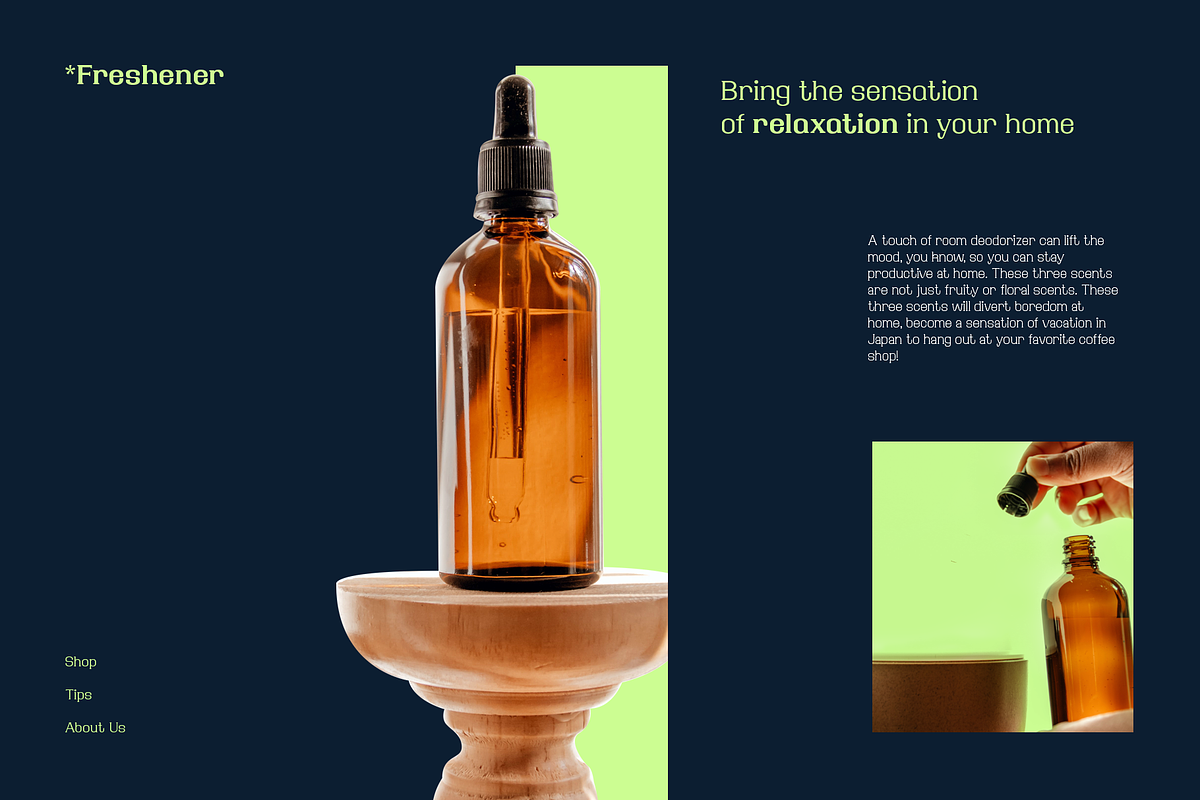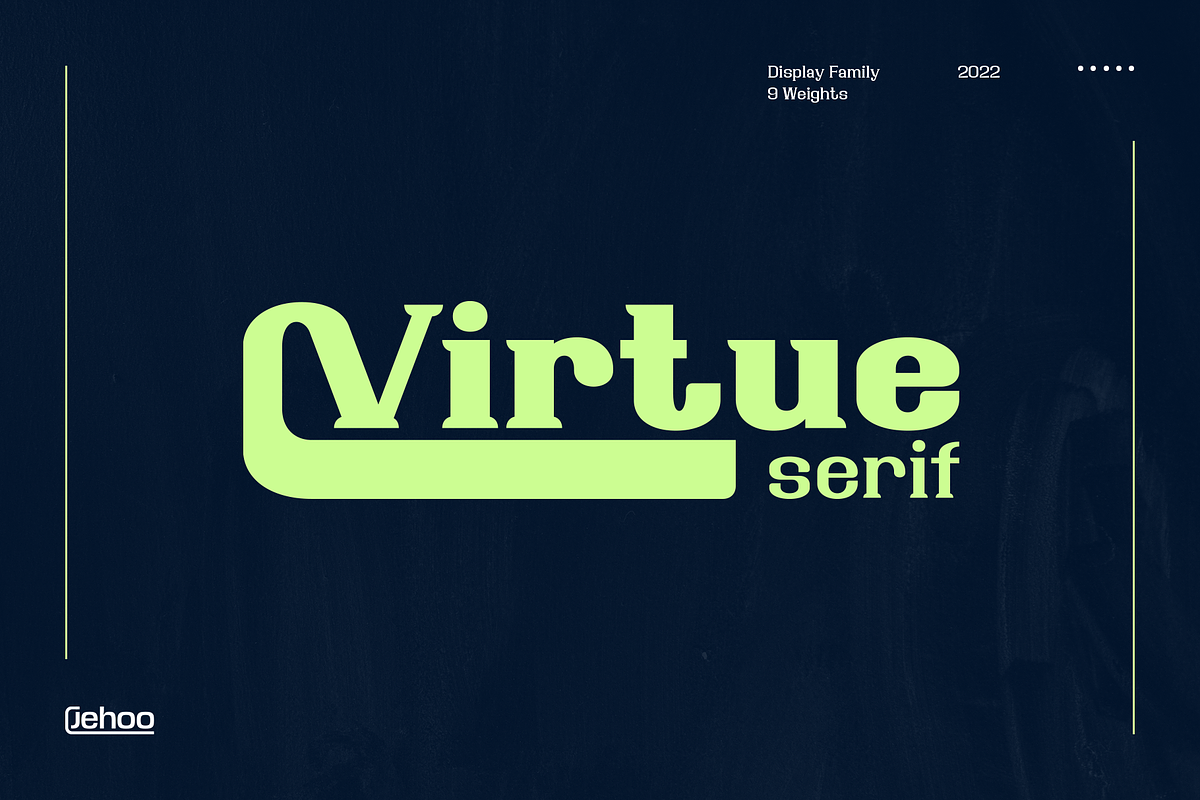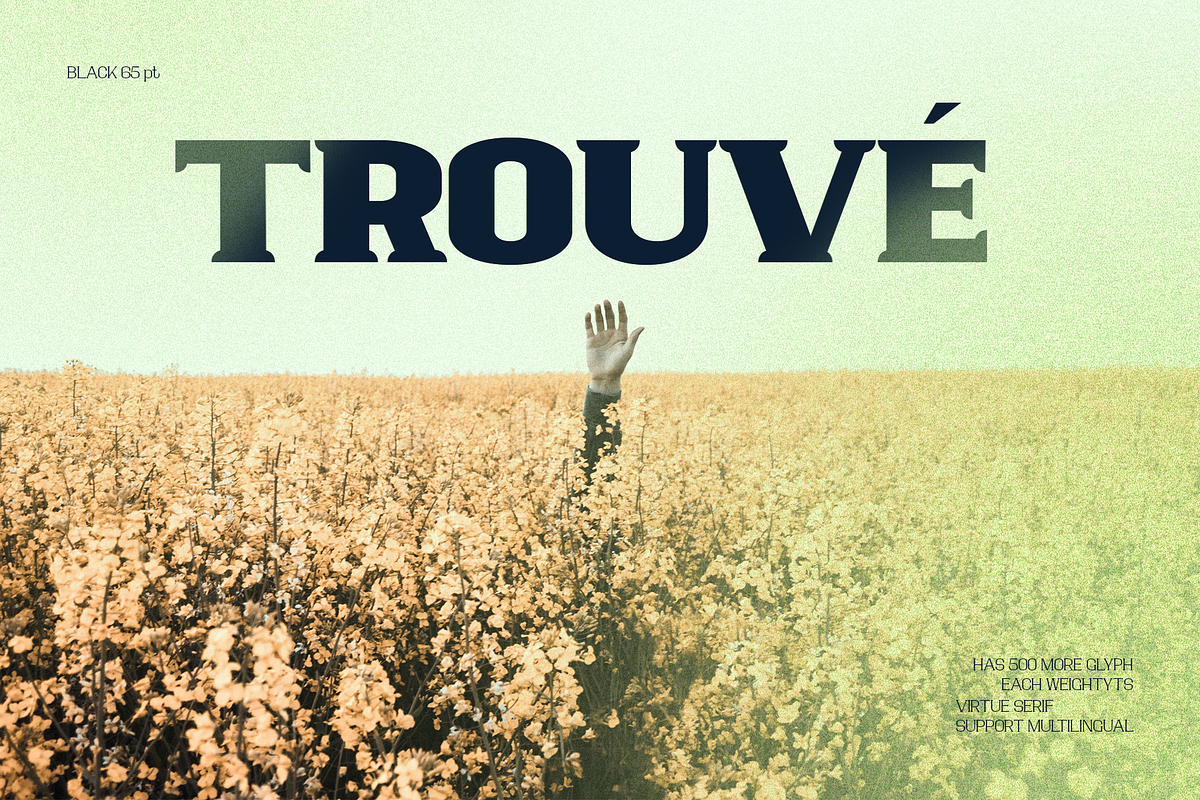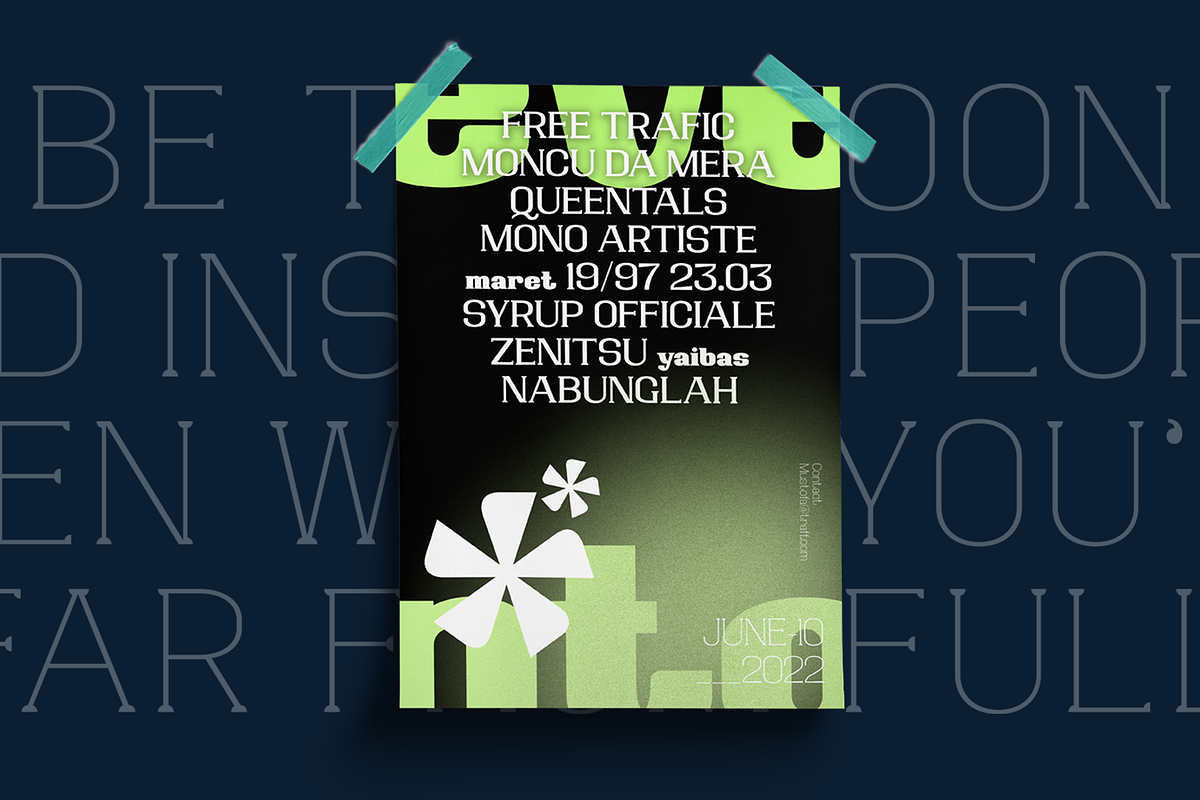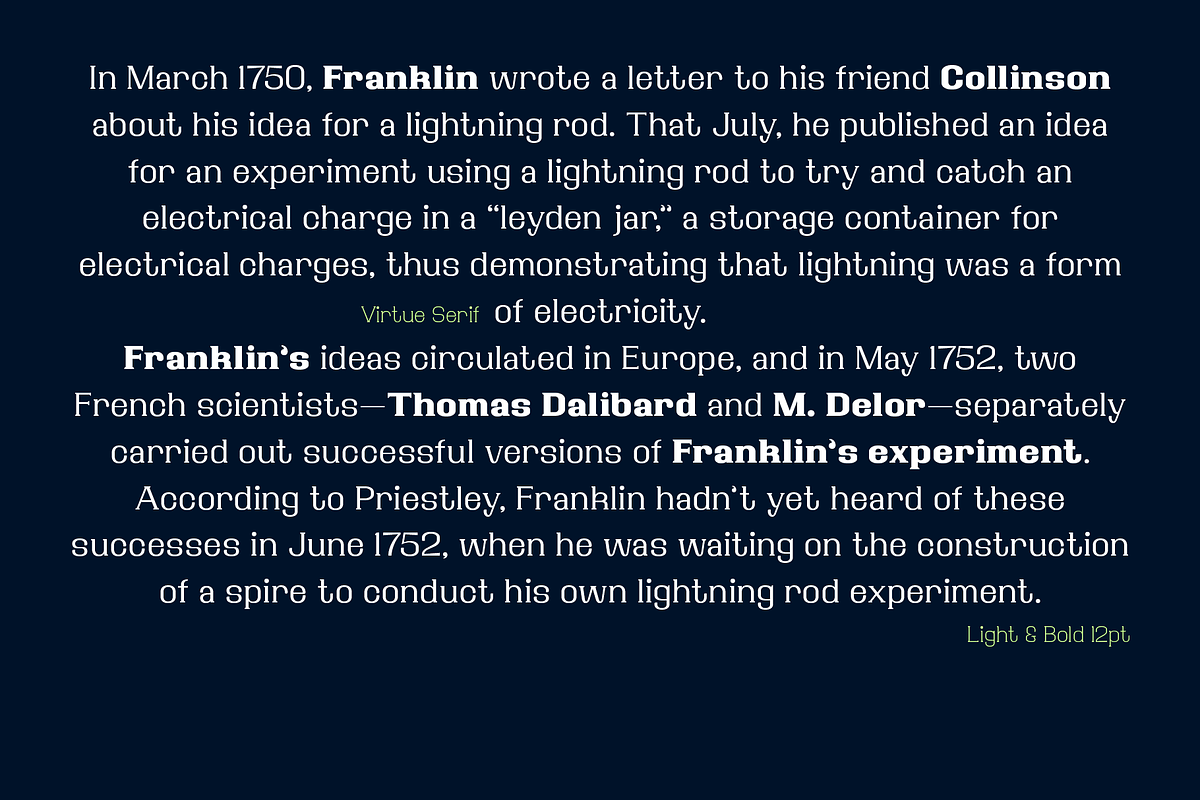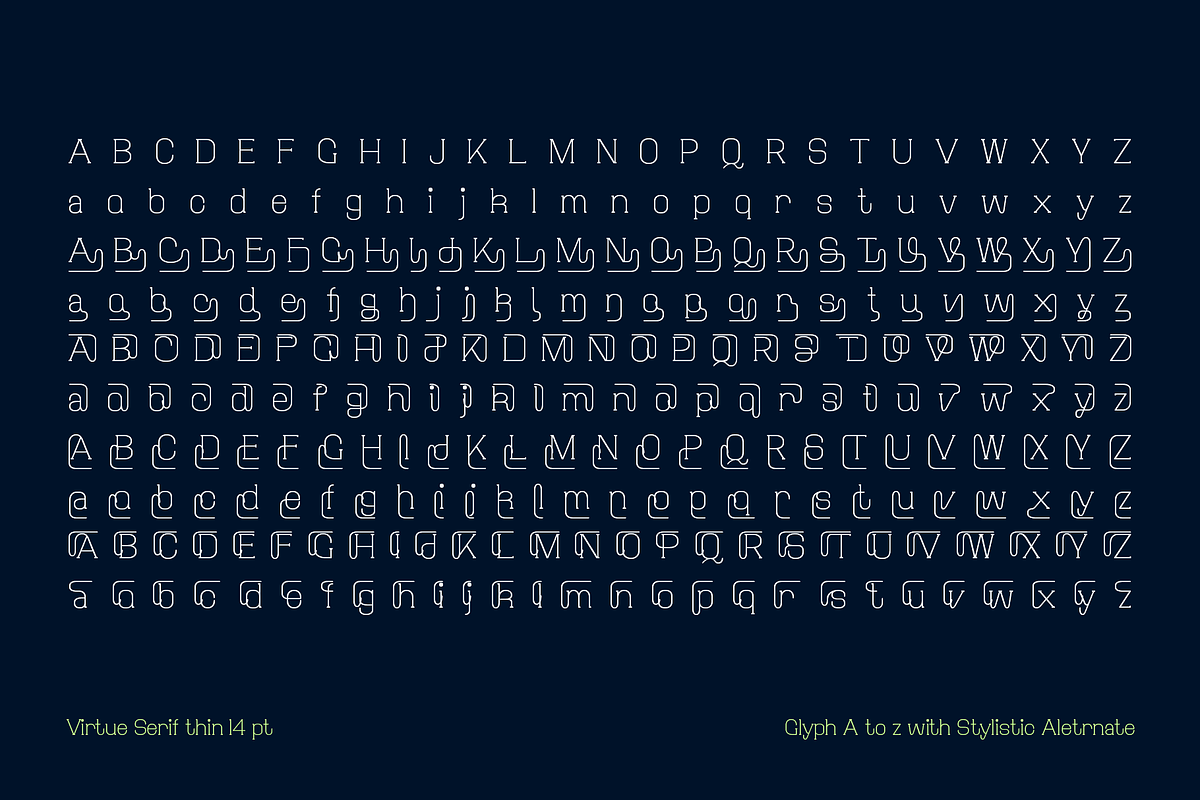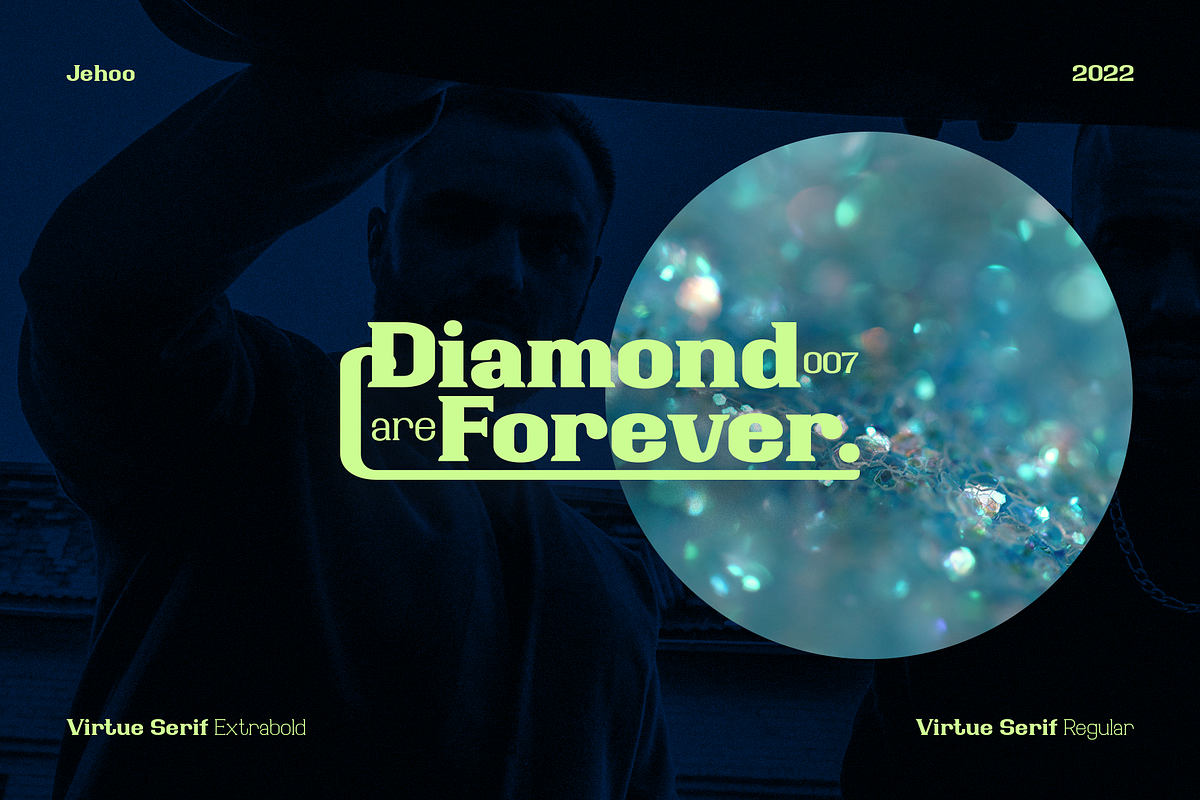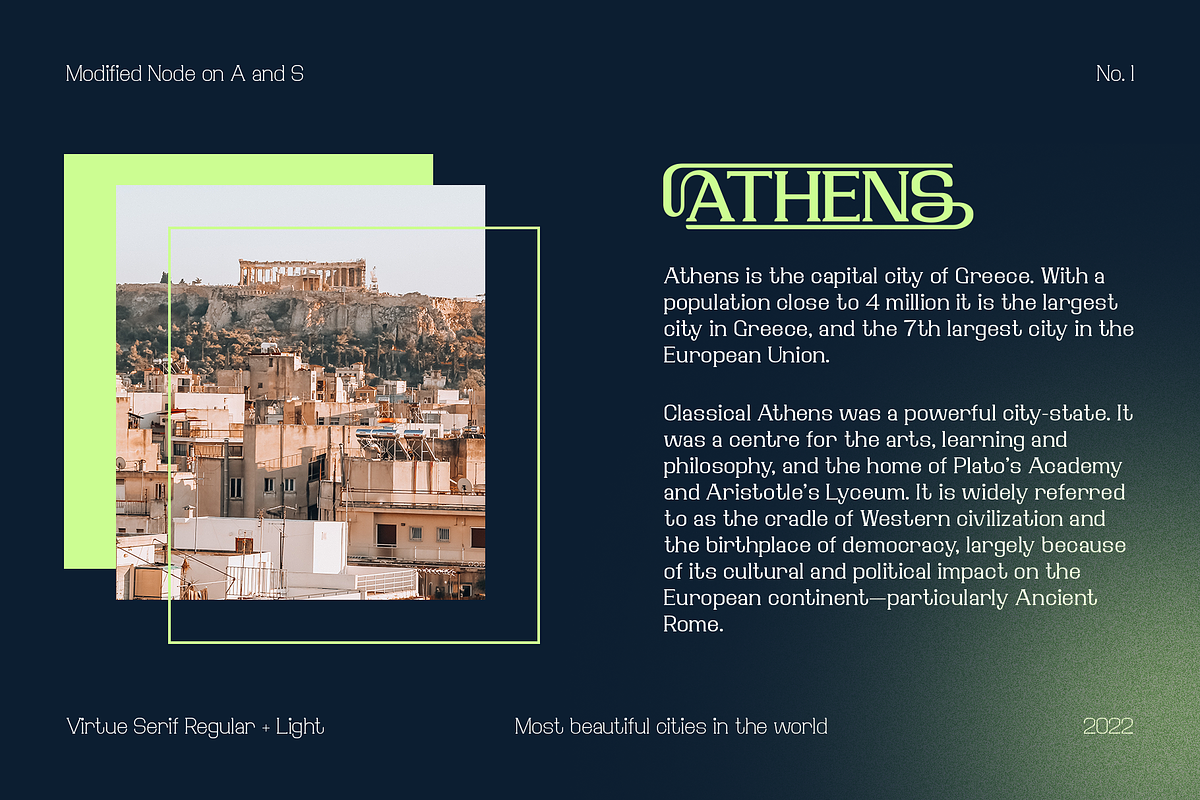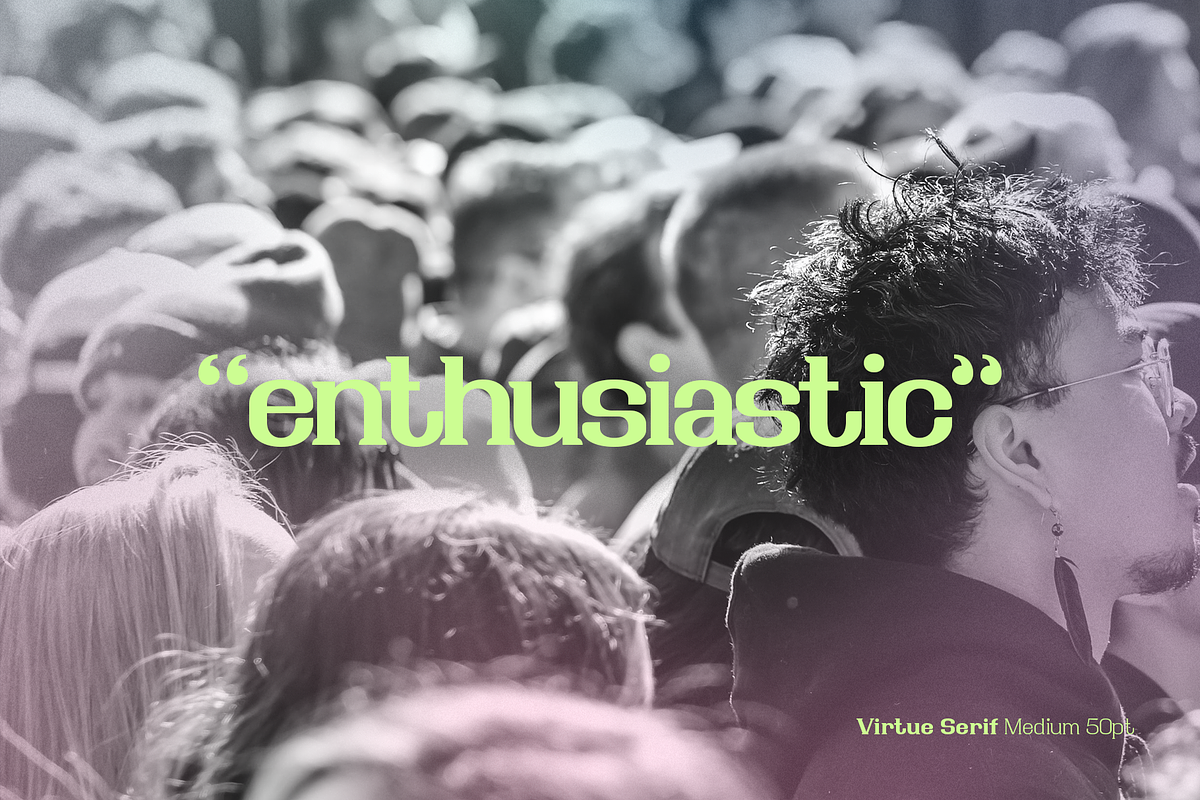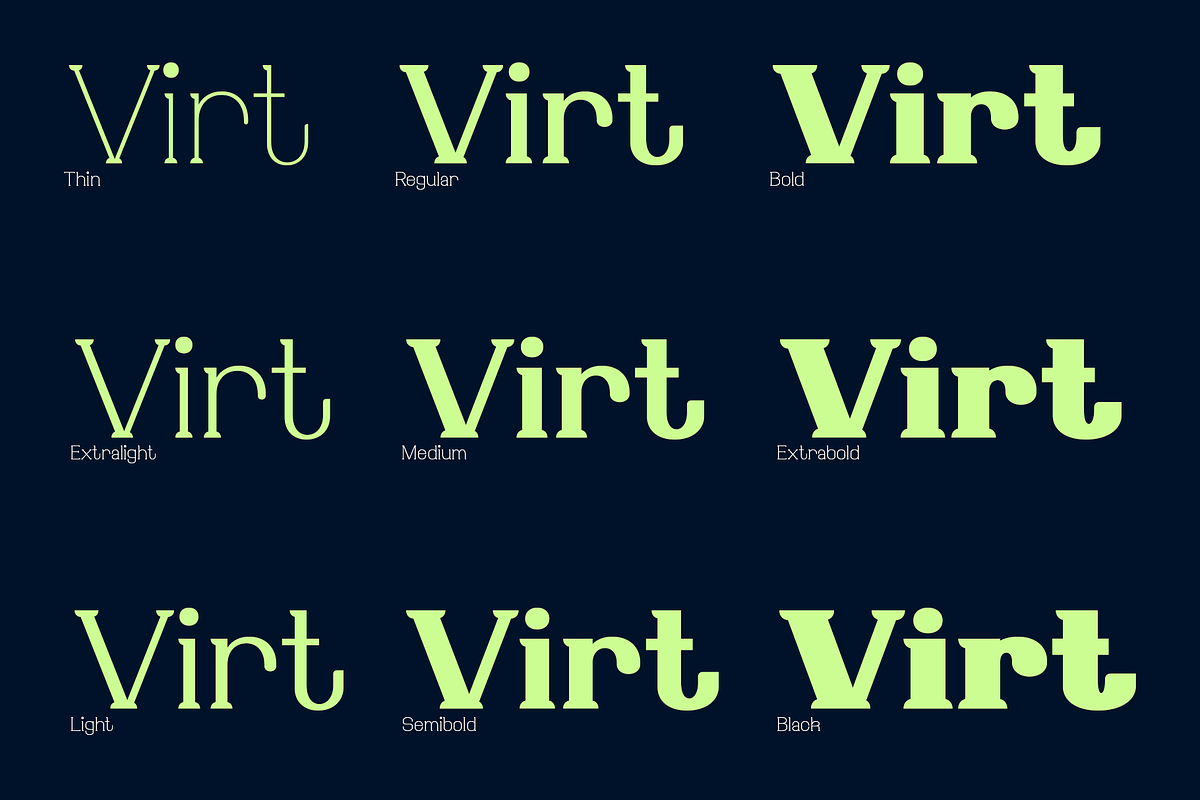
Virtue Serif Family
Virtue Serif is a variation of the Virtue Script which is more friendly to use as the body of your design without losing its unique and authentic features while still being a workhorse in display use. The rugged and spacious look is armed with a stylish set that is easy to control due to the simple design of the nodes.
with a full range of weights from thin to black, it also includes multilingual support this typeface is truly complete. Used for logo design needs, posters, magazines, mockups, web ui, branding, Cover art and more Virtue Serif font family is ready for that.